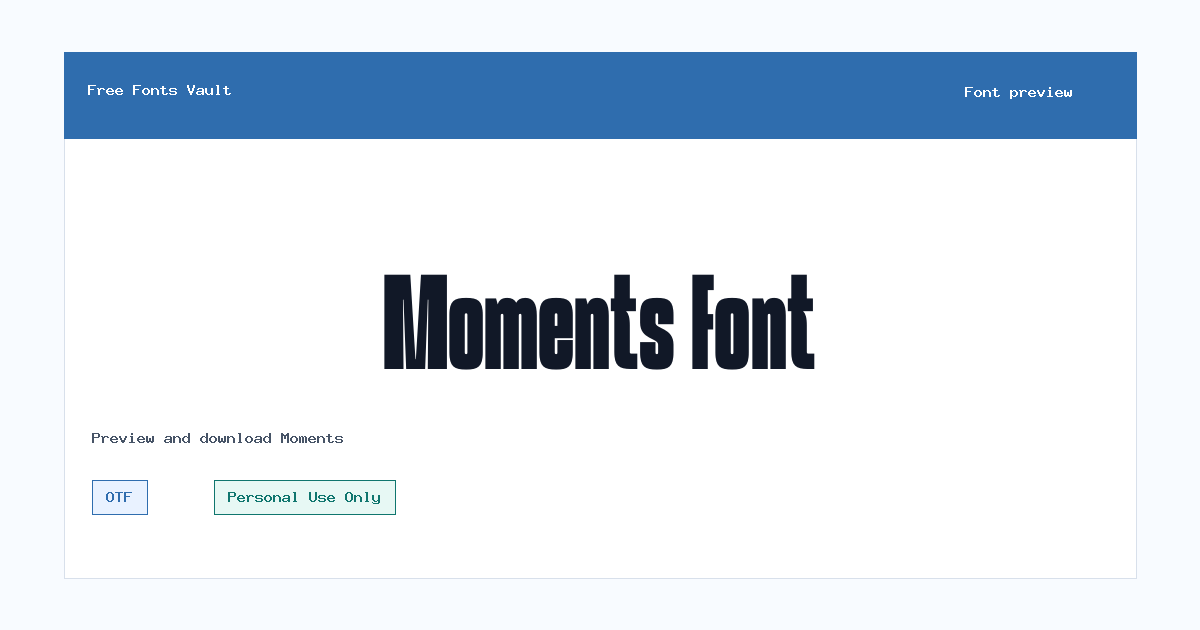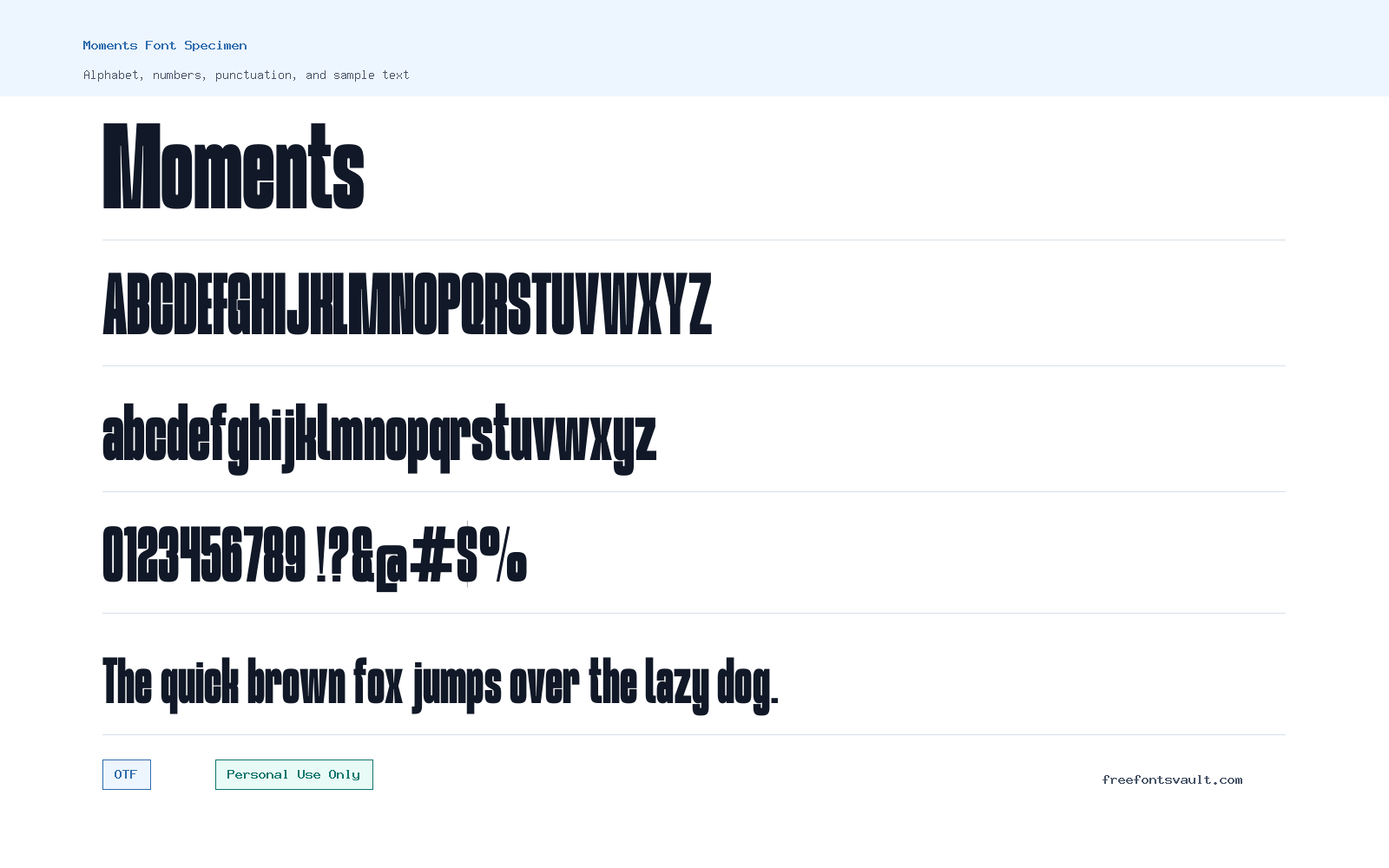
Moments
Moments font preview showing the family name
Moments Font
Moments font specimen showing alphabet, numbers, and sample text
Moments font.
Moments is a sans serif font family by Funtype Co. with a clean regular style in OTF format. It is best approached as a personal-use display font for visitors who want to test a simple, polished typeface in previews, mockups, and non-commercial design drafts.
About Moments Font
Moments keeps the focus on straightforward letter shapes rather than decorative effects. Because the available style is a regular 400-weight font, it can work well when you need a clear title, short heading, logo draft, poster line, or social graphic that does not feel too heavy. Its sans serif structure makes it easier to test across many design directions, from minimal layouts to more playful compositions, without relying on extra swashes or ornate details.
Use the preview tool to check how Moments behaves with the exact words you plan to use. Short brand names, uppercase titles, simple quotes, and compact poster text are good starting points. For logo work, test spacing carefully, especially if the word has narrow letters, repeated characters, or a mix of uppercase and lowercase forms. For posters and web mockups, try it at larger sizes first, then reduce it to see where the shapes begin to lose impact. Since only a regular OTF variant is listed, avoid building a layout that depends on bold, italic, or multiple weights unless you plan to pair it with another family.
• Regular 400-weight sans serif style suitable for headings, title text, and visual mockups.
• Clean single-style family setup that is easy to test quickly in previews.
• Practical for short text where spacing, size, and contrast can be adjusted by the designer.
• Logo drafts and brand-name experiments
• Poster headings and event graphics
• Website hero mockups and landing page concepts
• Social media quote images and announcement designs
• Presentation covers and title slides
• Packaging mockups for personal or concept work
• Short display text in mood boards
Moments is credited to Funtype Co. as the designer and foundry.
For best results, use Moments in short text rather than long paragraphs. Start with headlines, names, labels, or brief display lines, then adjust tracking and line height manually. If you need body copy, pair Moments with a neutral, readable sans serif or serif that has multiple weights. Keep the pairing simple: let Moments handle the title or logo area, and use the companion font for descriptions, captions, menus, or longer interface text. In web mockups, test it at desktop and mobile sizes before settling on final spacing.
Is Moments good for logos?
Can I use Moments for posters?
Yes, it can work for personal-use poster headings, event mockups, title lines, and short display text. Test the size and spacing before using it in a finished layout.
Does Moments include bold or italic styles?
Only a regular 400-weight style is listed, so do not assume matching bold, italic, or extended family styles are included.
Is Moments suitable for long paragraphs?
It is better to use Moments for short display text. For long reading sections, pair it with a more text-focused font.